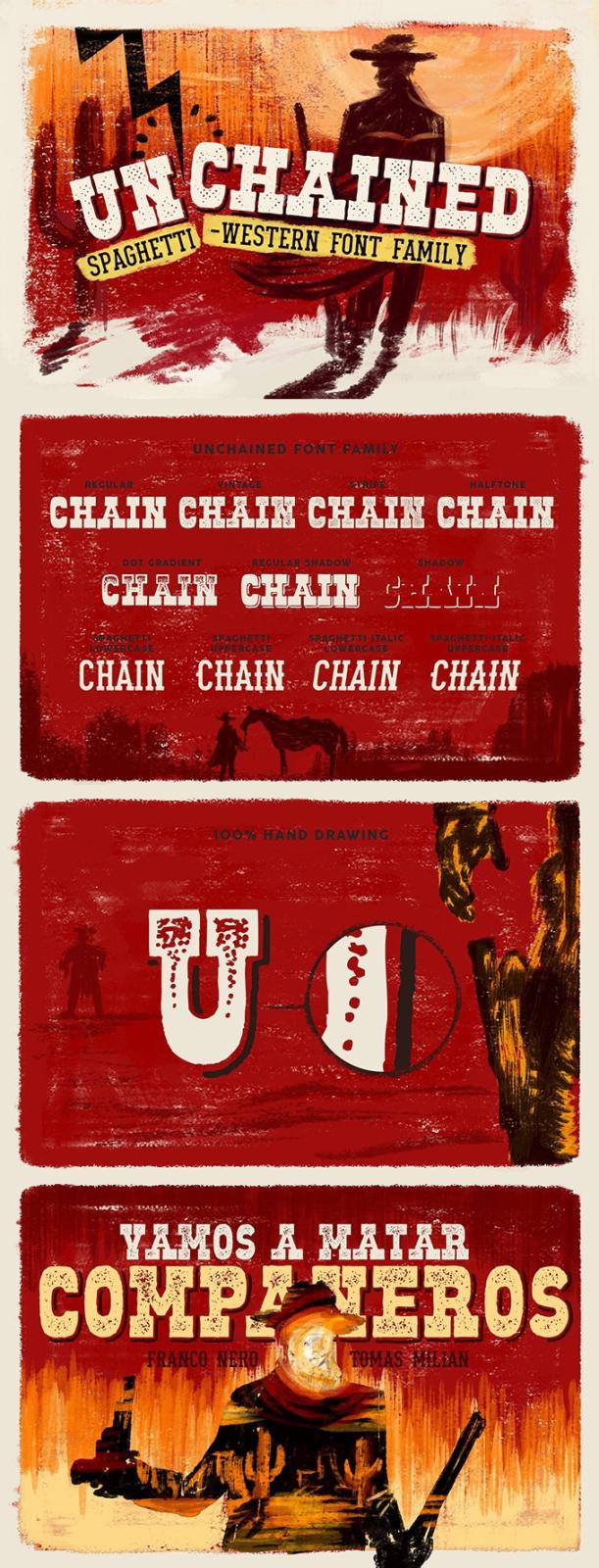
Attention, the typefaces are wanted! The Unchained font family, forged in the prairies of the Wild West and bringing a genuine vintage feel to your design projects with a cowboy mood.
The best thing about it, that it comes with seven typeface styles for the main font and four styles for the support one. It's made to offer quality and variety of the high-end premium product as a result. Your thematic printouts, posters, design identities now are totally provided with a worthy font family!